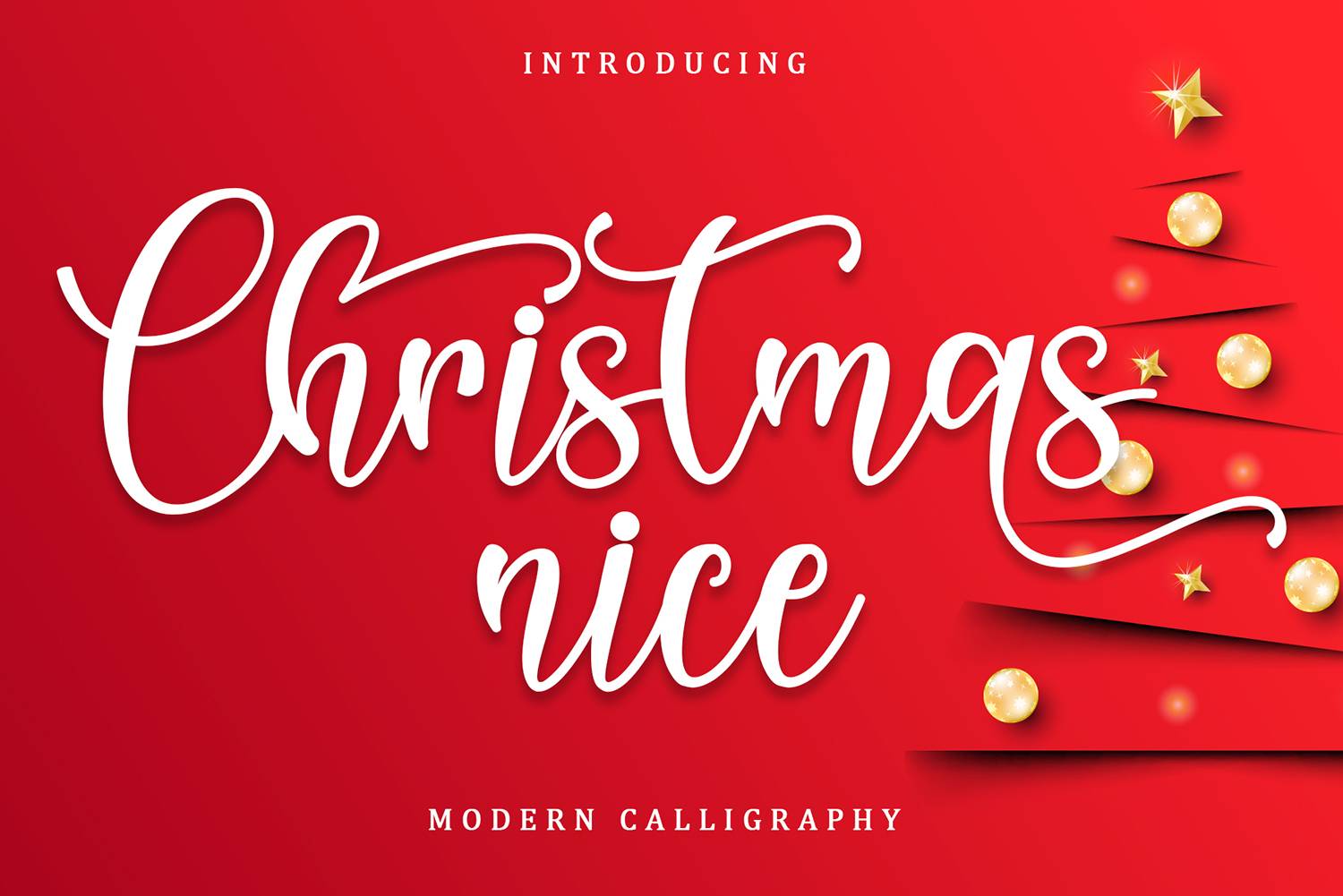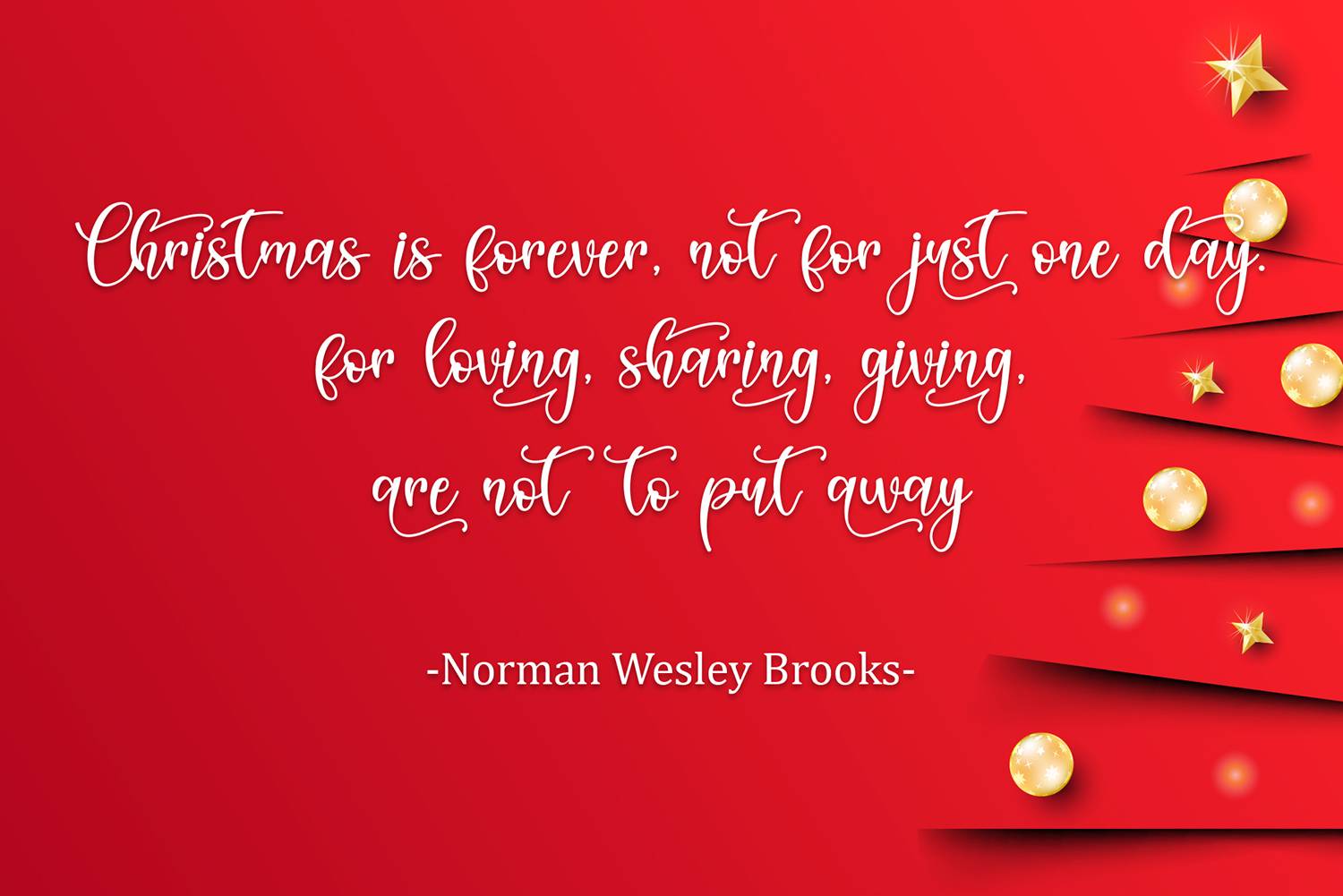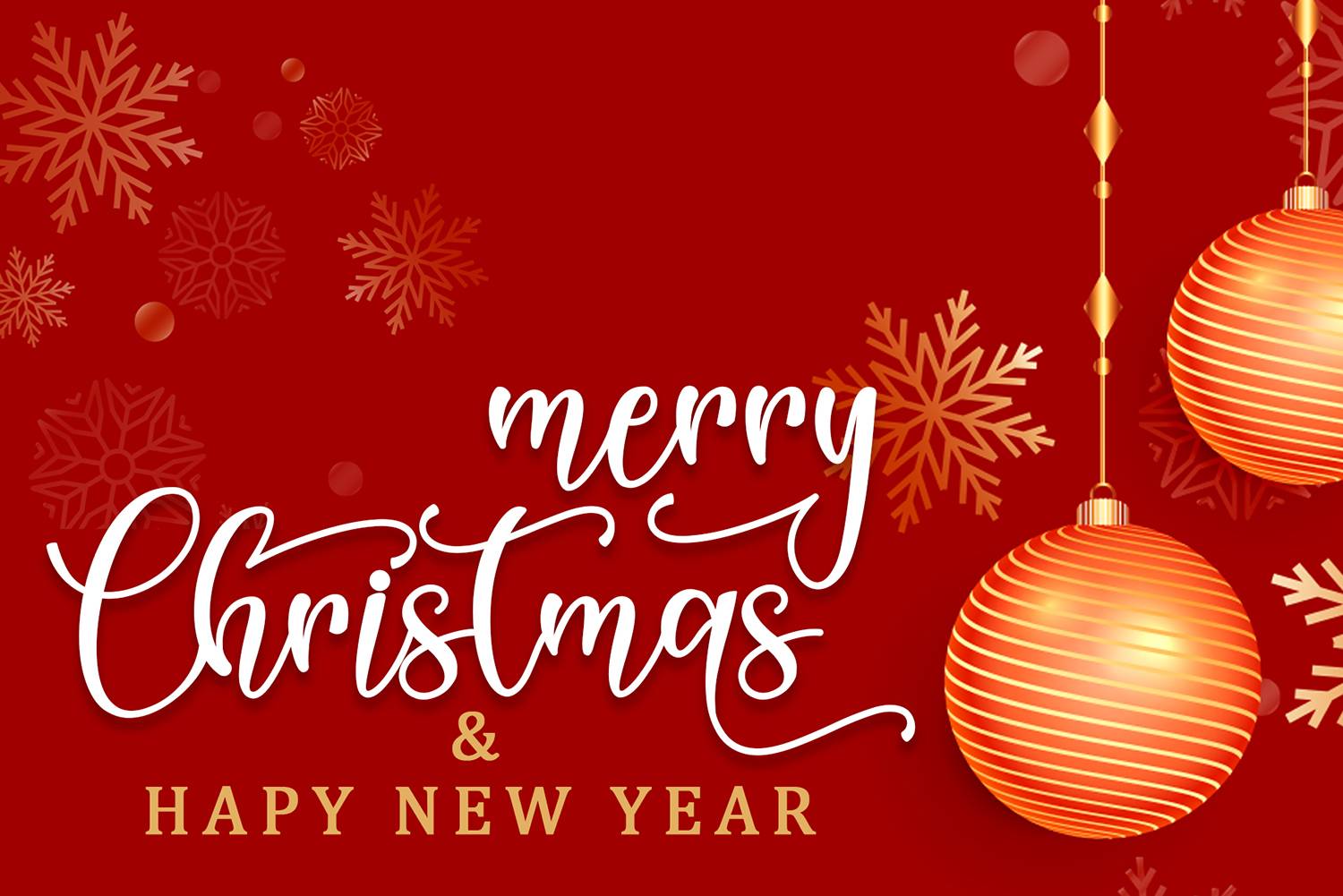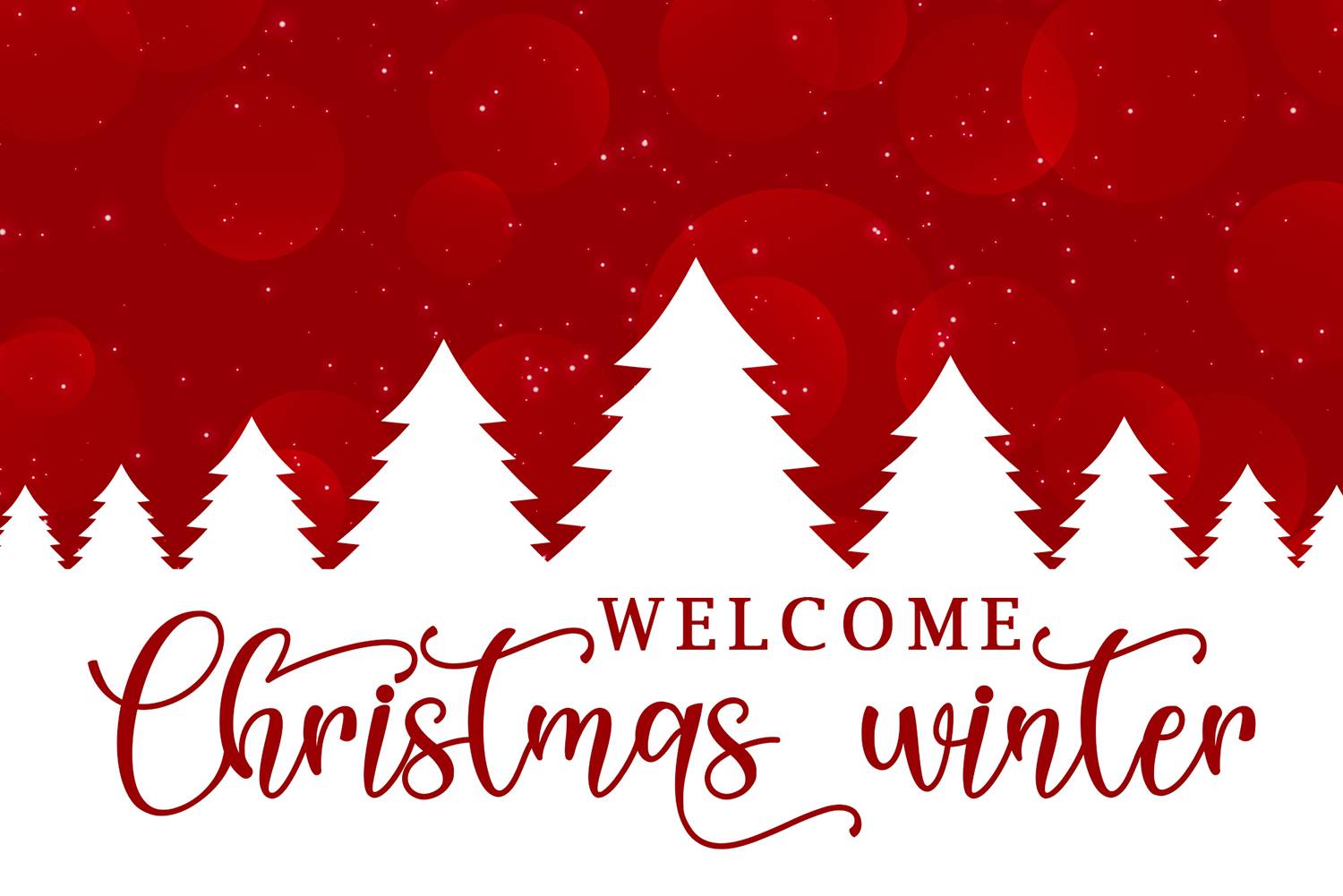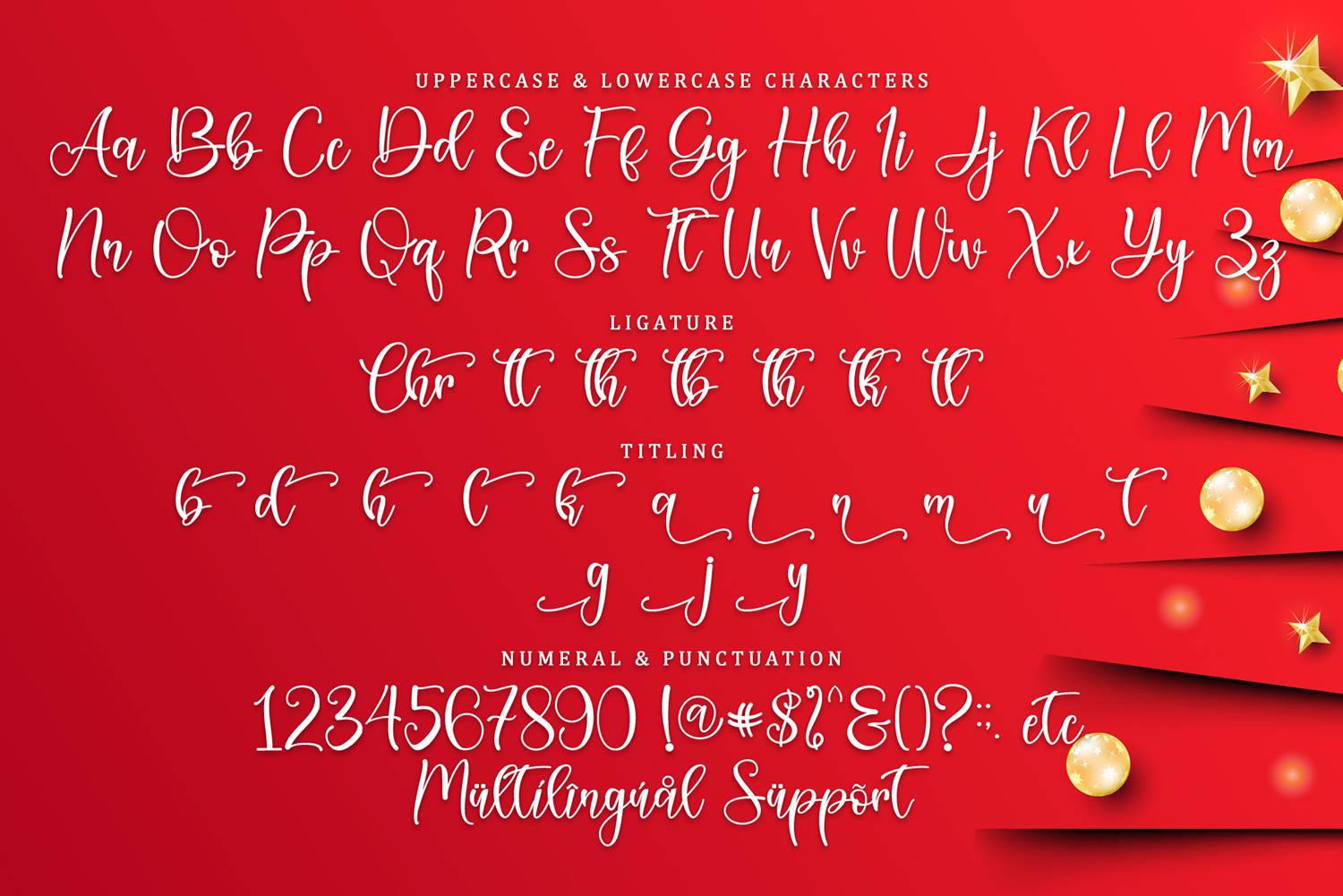
Christmas Nice is a delicate script font featuring elegant, flowing lines with a playful yet refined feel. Its thin strokes and subtle curves make it perfect for festive designs, invitations, and branding that aim to convey warmth and charm with a touch of sophistication. This font works beautifully for holiday-themed projects and stylish, personal communication.
Christmas Nice Font
About Christmas Nice Font